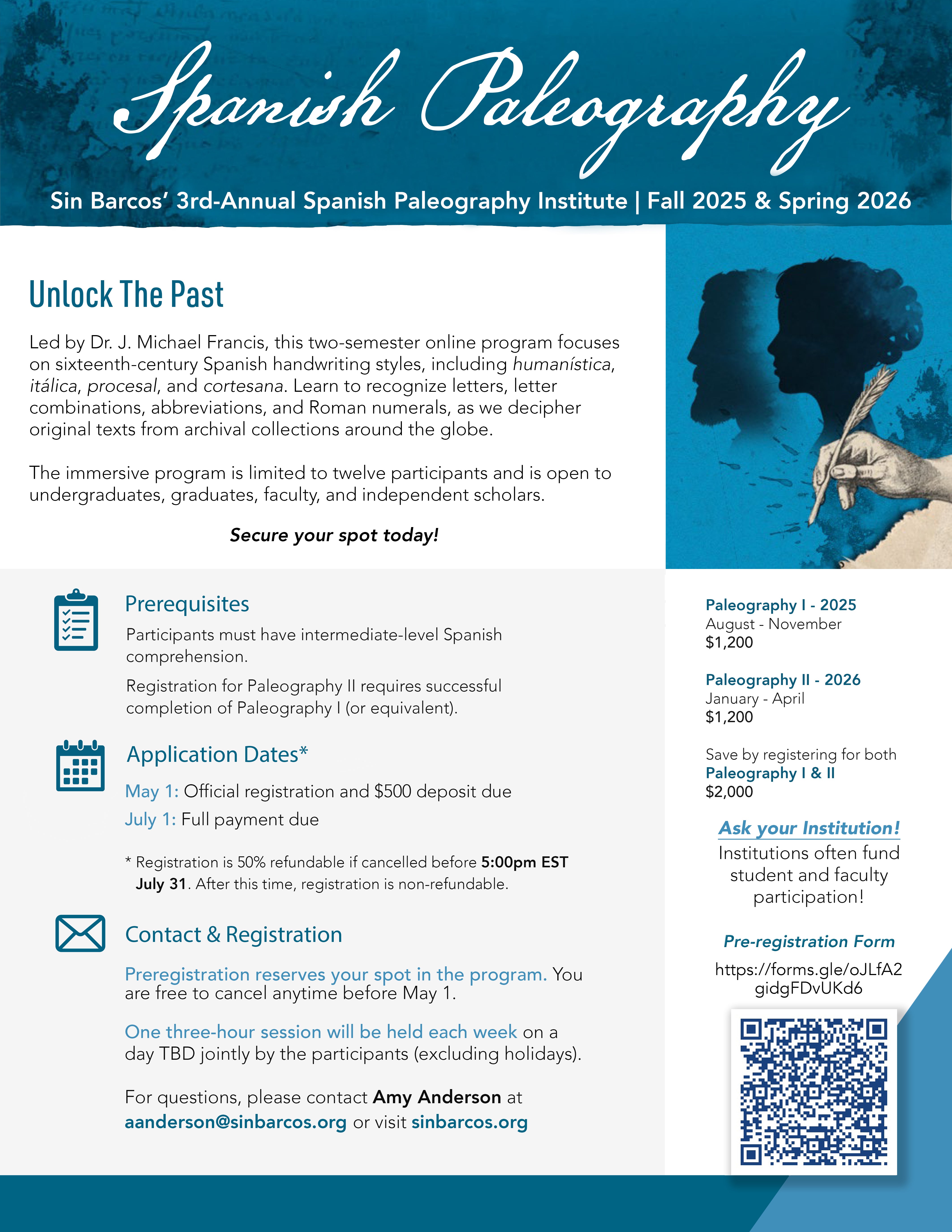
Unlock The Past!
Led by Dr. J. Michael Francis, this two semester online program focuses on sixteenth-century Spanish handwriting styles, including humanística, itálica, procesal, and cortesana. Learn to recognize letters, letter combinations, abbreviations, and Roman numerals, as we decipher original texts from archival collections around the globe.